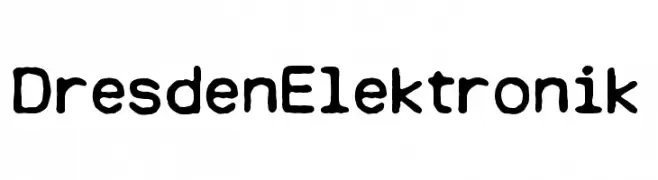
A playful, handwritten font with a casual and friendly vibe.
A handwritten italic font with elegant curves and consistent stroke width.
A bold, distressed font with a grungy, dripping effect.
A bold, textured font with a rugged, industrial style.
A distressed, grungy font with a chaotic and edgy aesthetic.
A bold, modern sans-serif font with strong, uniform strokes.
A modern sans-serif font with a clean and minimalistic design.
A bold, rounded font with a playful and modern style.
A bold, angular font with a futuristic, geometric style.
A bold, angular, and italicized font with a futuristic style.
A bold, textured font with a rugged, hand-crafted appearance.
A bold, brush-style font with an energetic and artistic flair.
A bold, textured font with a handcrafted, artistic feel.
A playful, bold font with quirky serifs and a lively twist.
A bold, edgy font with sharp, pointed serifs and a gothic-modern style.
A bold, decorative font with spiral designs within each character.
A playful, double-line decorative font with a whimsical and dynamic style.
A bold, angular font with sharp, peak-like cut-out details.
A bold, geometric font with a modern, digital aesthetic and rounded edges.
A bold, geometric font with a modern, digital aesthetic and rounded corners.
A bold, italicized font with a modern, geometric design and consistent stroke width.
A bold, italicized font with a futuristic, digital aesthetic.
A bold, playful handwritten font with a casual and dynamic style.
A rugged, distressed font with a hand-drawn, vintage style.
A vintage, textured typewriter-style font with monospaced characters and a bold, authentic look.
A vintage, monospaced font with a distressed, typewriter-style appearance.